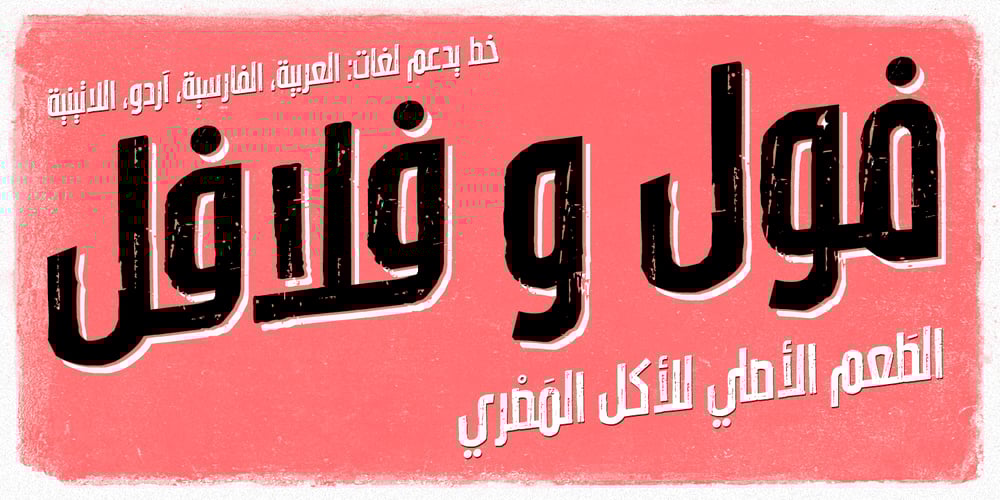
Lavah Pro Arabic
Lavah Pro Arabic font
Lavah Pro Arabic Font Family was designed by Ibrahim Hamdi and published by Protype. Lavah Pro Arabic contains 2 styles and family package options. Lavah Pro is the upgrade from old version of Lava Arabic 1.0. It’s Arabic condensed/narrow with grunge and rough style for vintage style posters, brands or ads maybe for food ads or movie poster. Lavah Pro is supported by OpenType Features with many Stylistic Alternates and Discretionary Ligatures and It’s support Arabic, Persian, Urdu and Latin. Designed and Created by Ibrahim Hamdi Copyright © 2019 by Protype Foundry. All rights reserved.